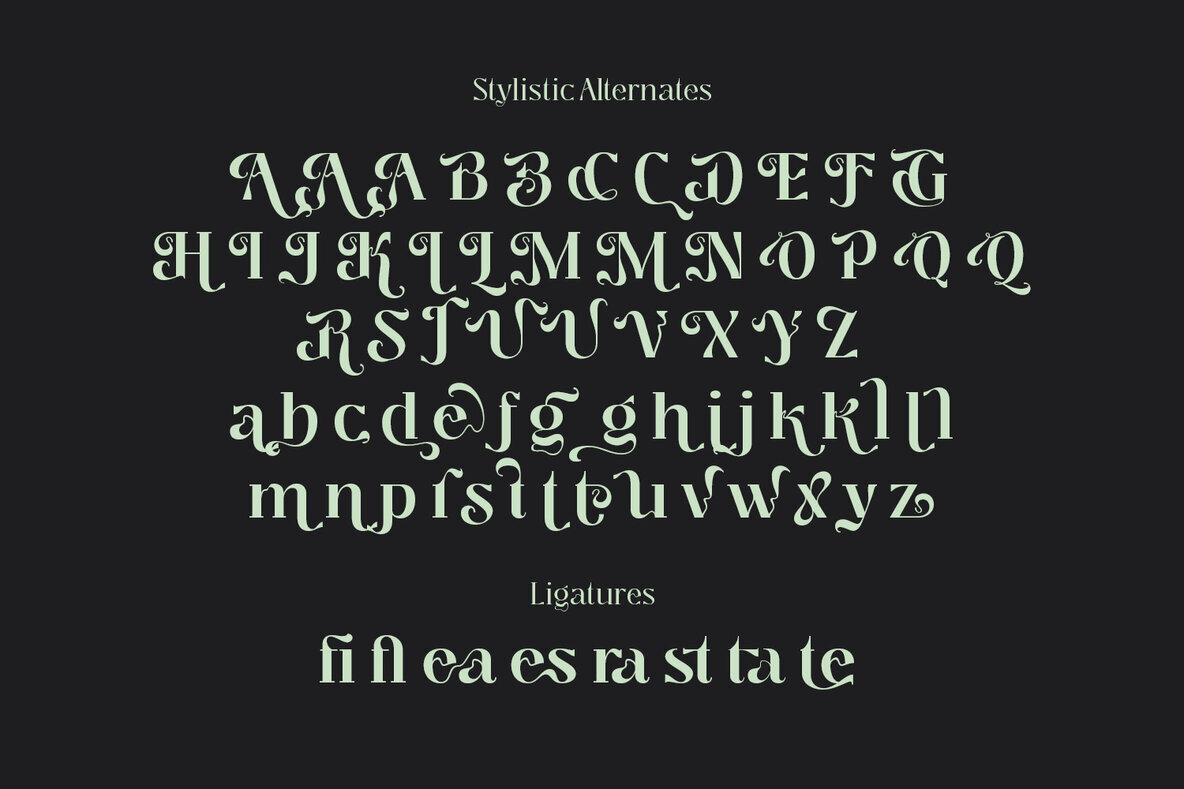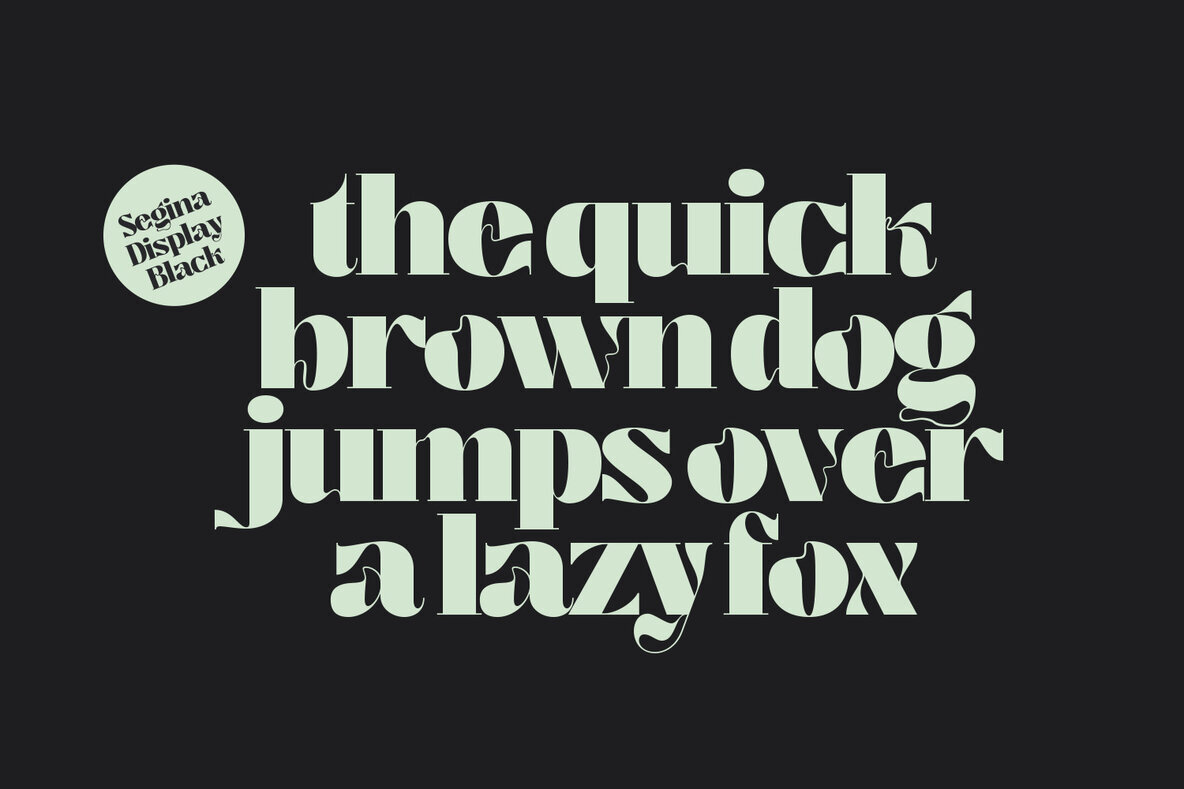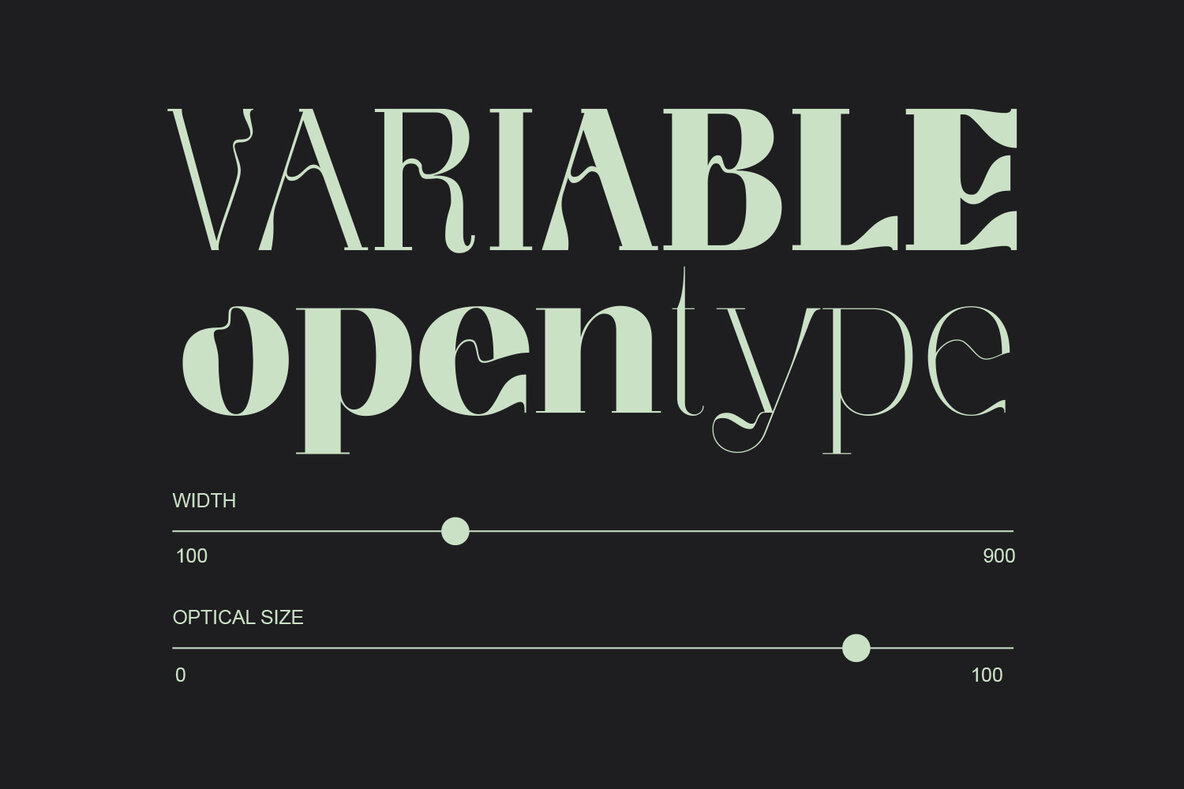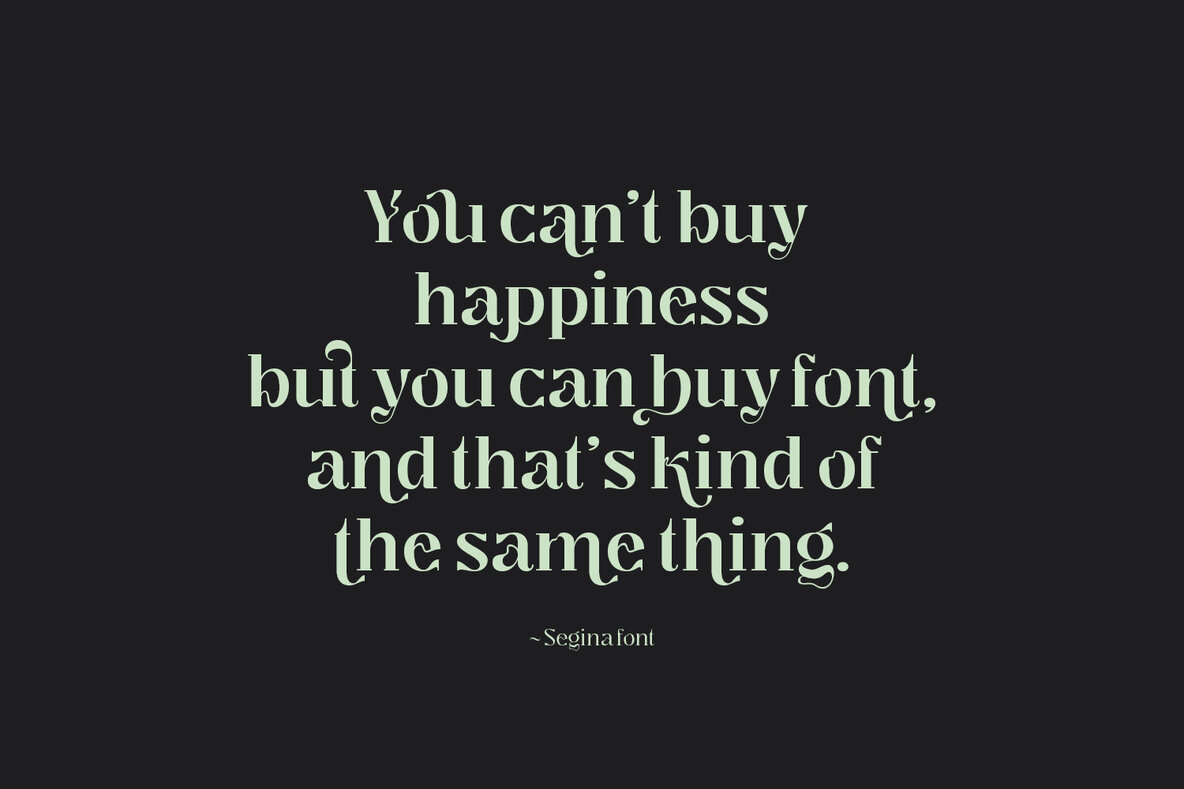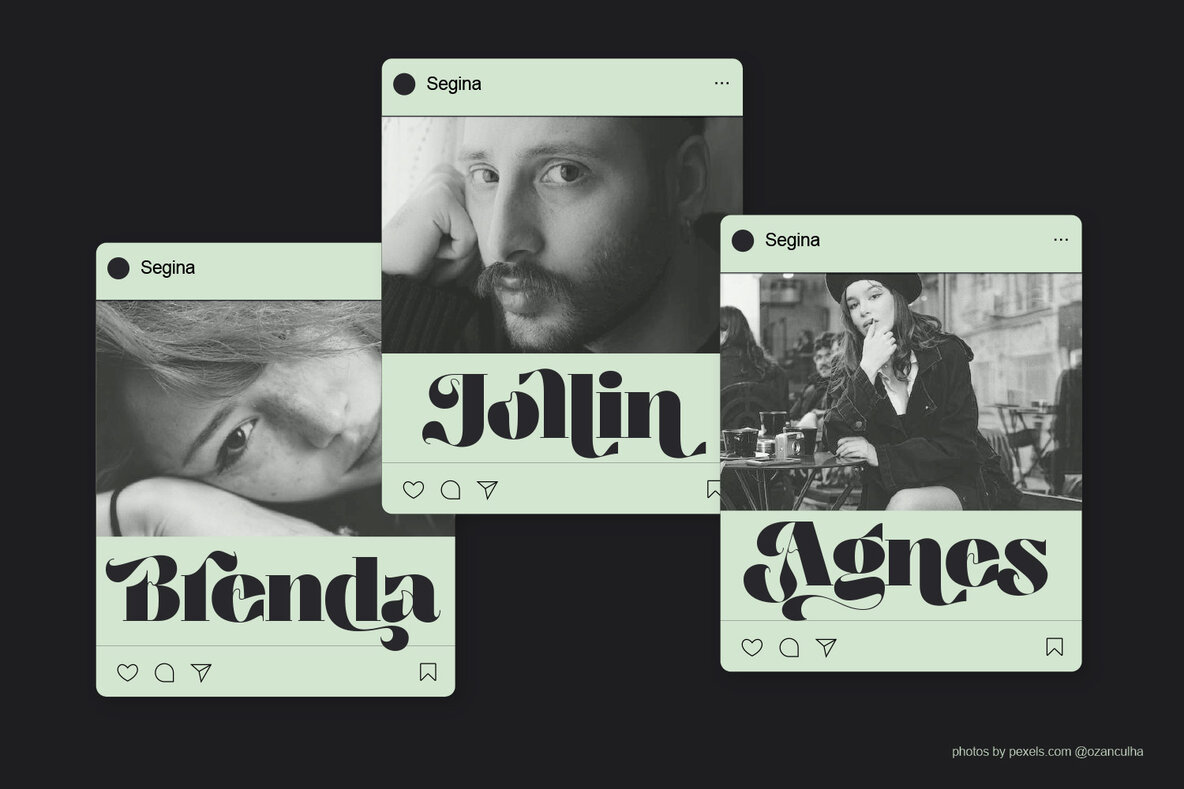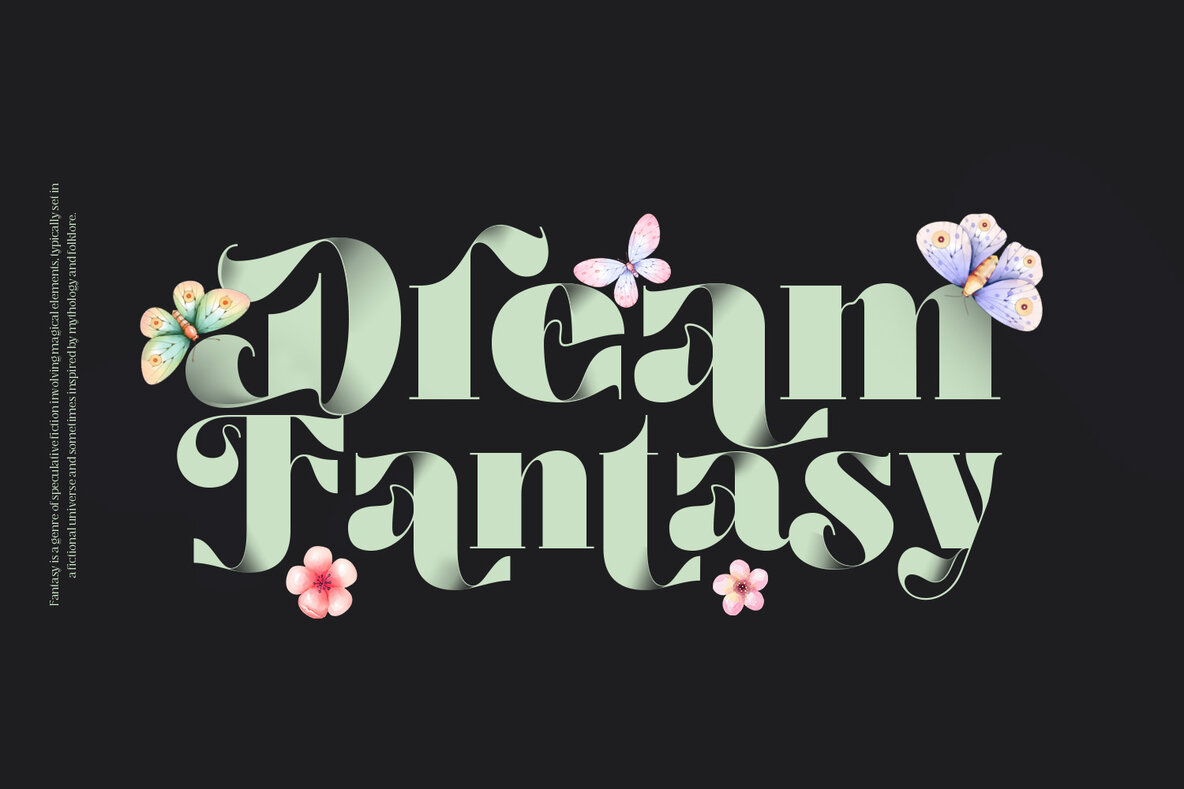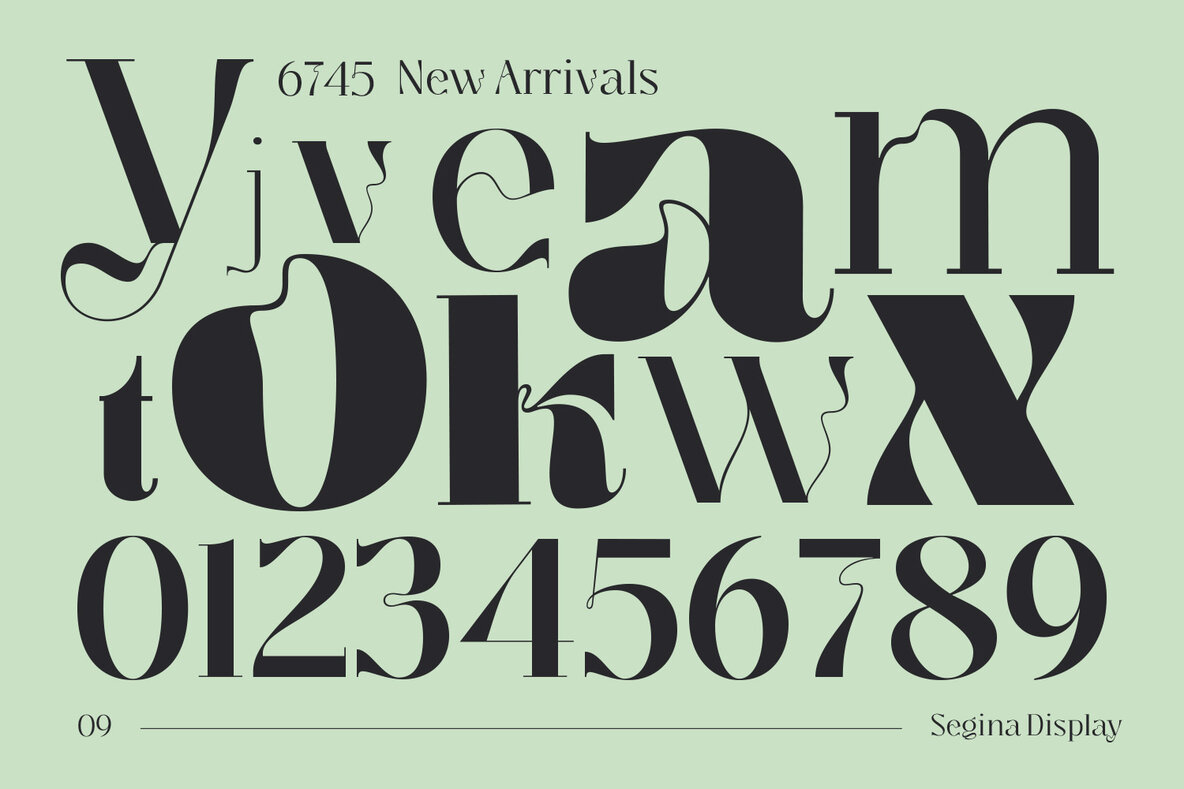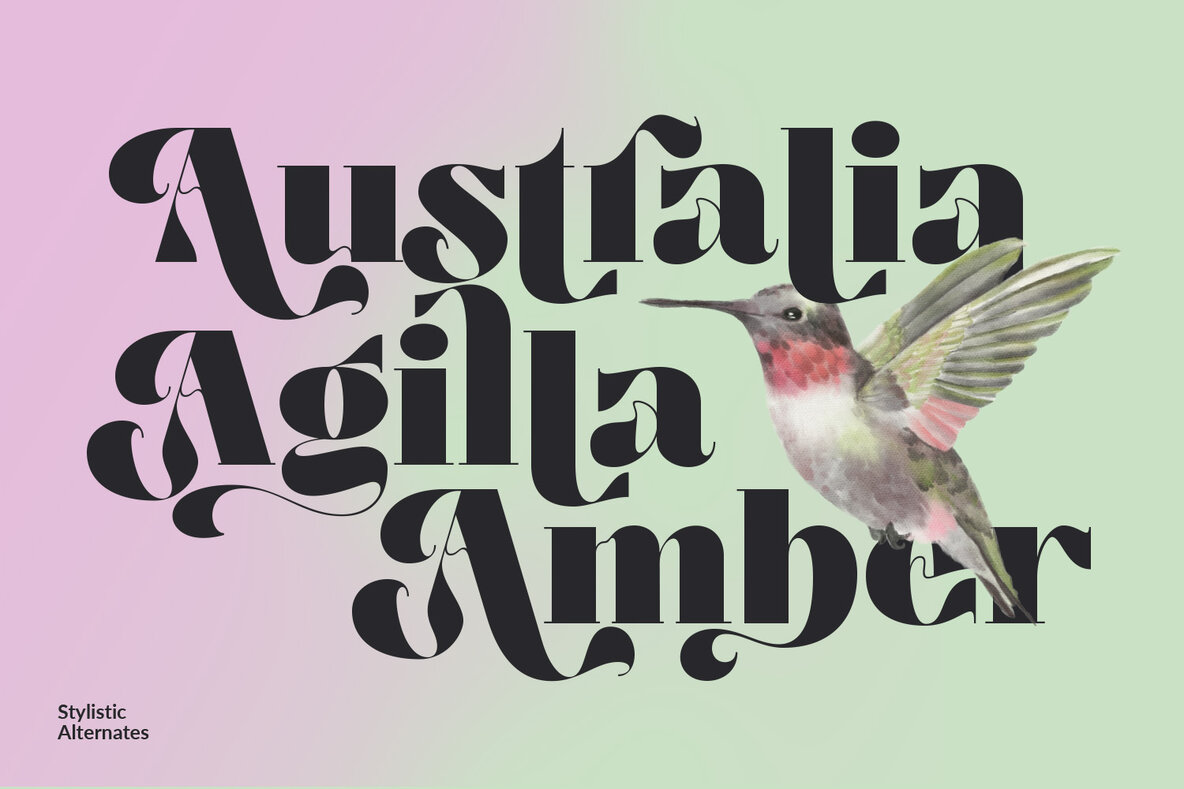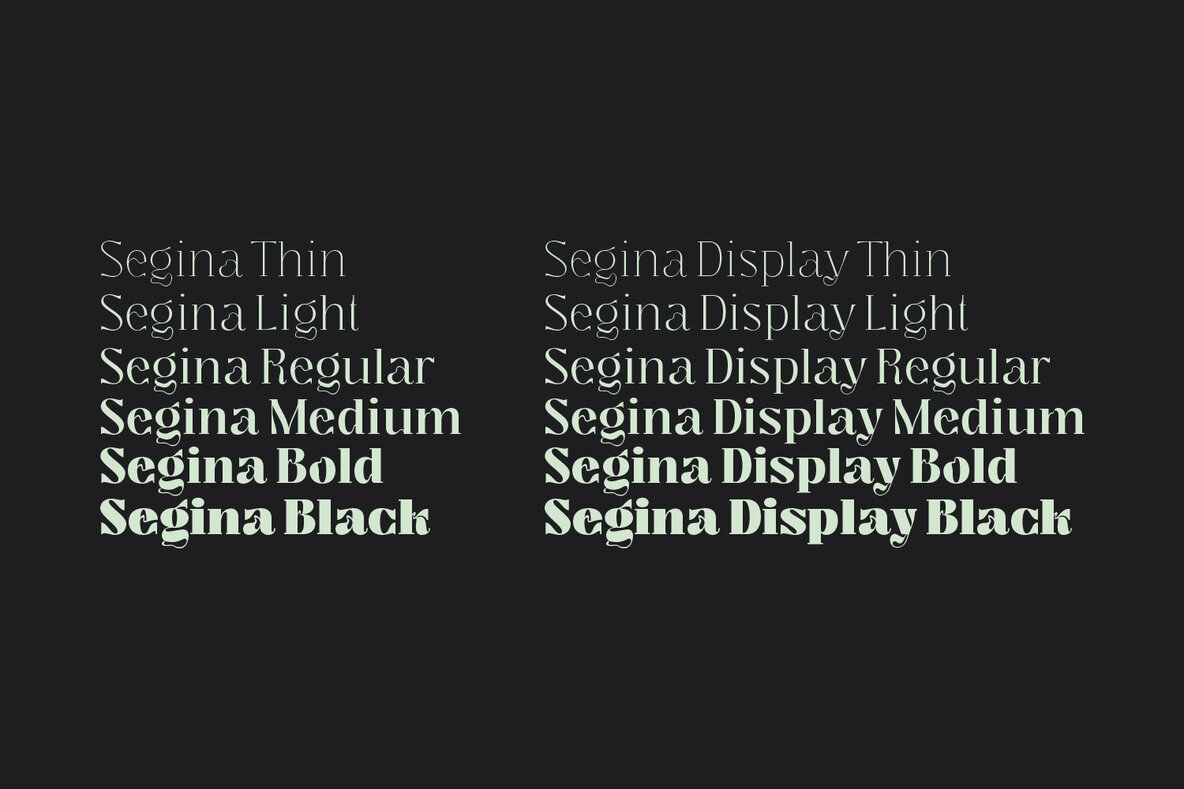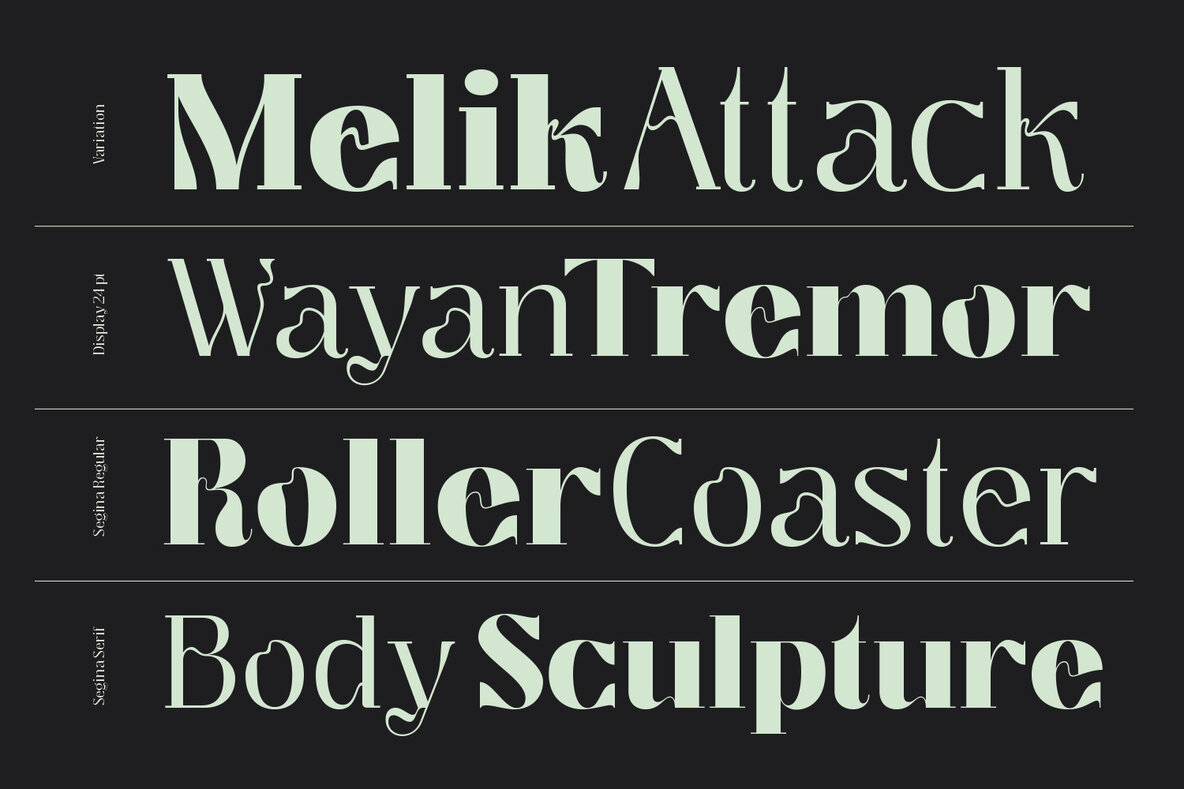
Segina Font
Segina is an intriguing fusion of a high-contrast serif and a modern psychedelic font, resulting in a slightly wavy, unique, and eye-catching typeface. The font family offers two options: Regular and Display, each featuring six weights ranging from Thin to Black. Additionally, Segina comes in a variable format with two axes, allowing customization of weight and optical size. With an array of alternative characters, Segina is highly adaptable for designing headings, titles, or logotypes, giving your creative projects a distinctive and memorable flair.